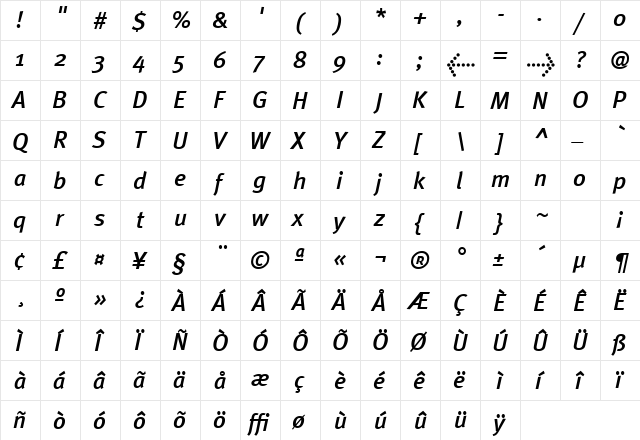
MetaPlusMedium-Italic Regular
Design Context for MetaPlusMedium-Italic Typeface
MetaPlusMedium-Italic offers clean, dependable letterforms without strong stylistic allegiance, making it a practical choice for designers who need flexibility. The slanted form adds forward momentum and visual energy.